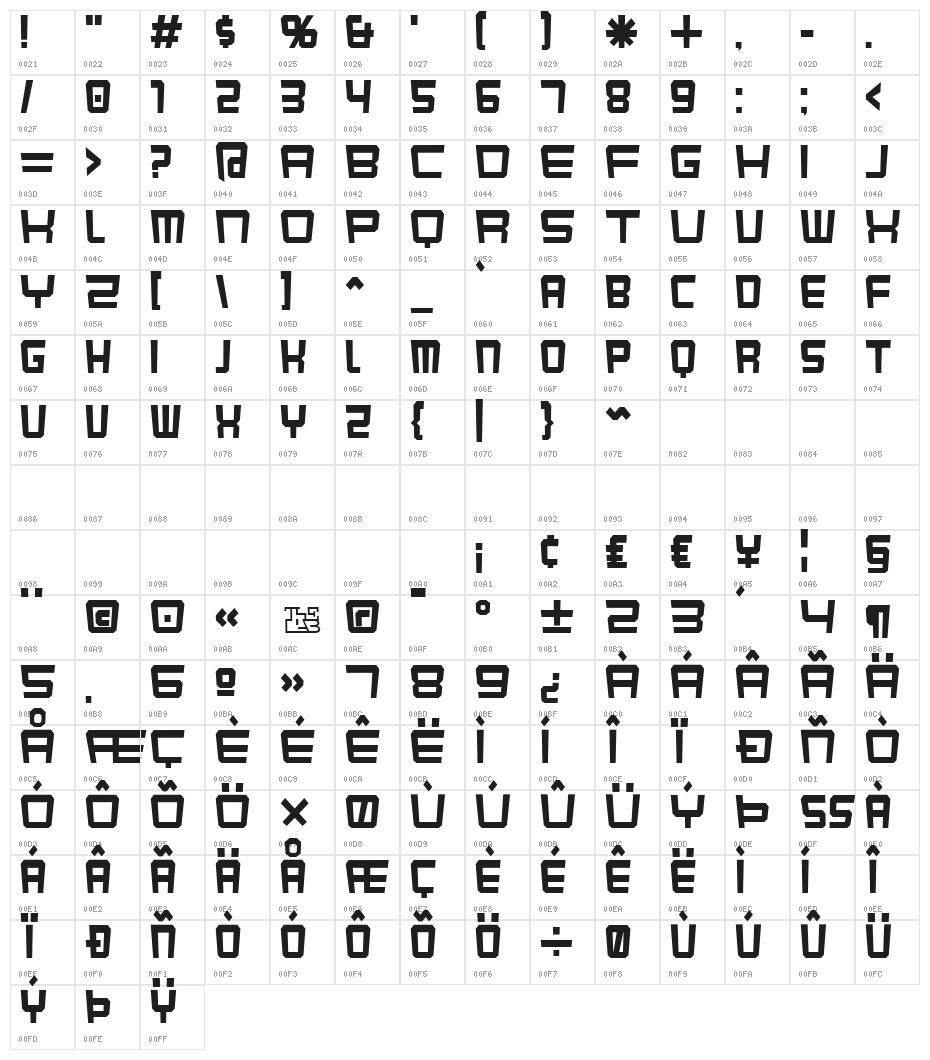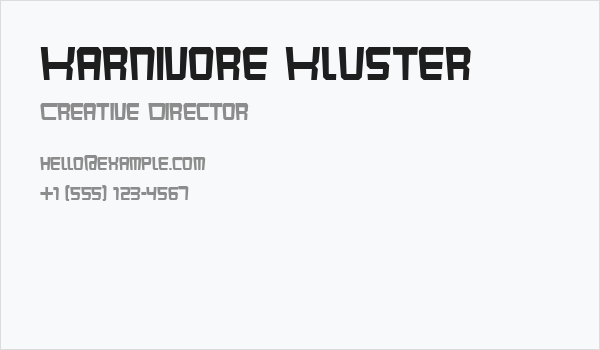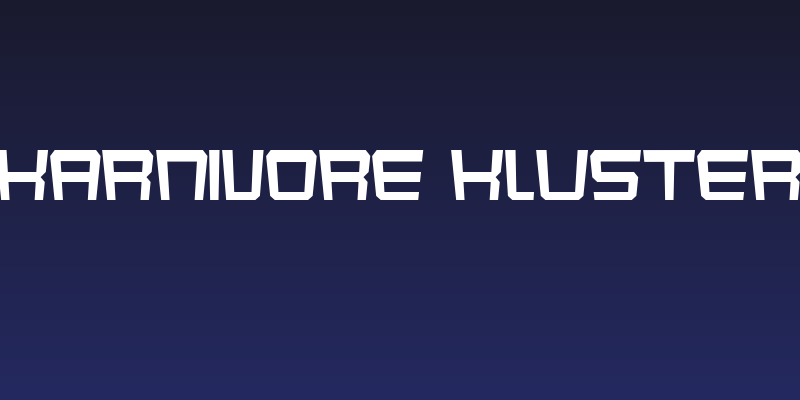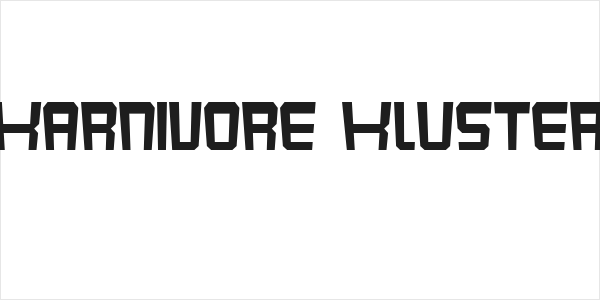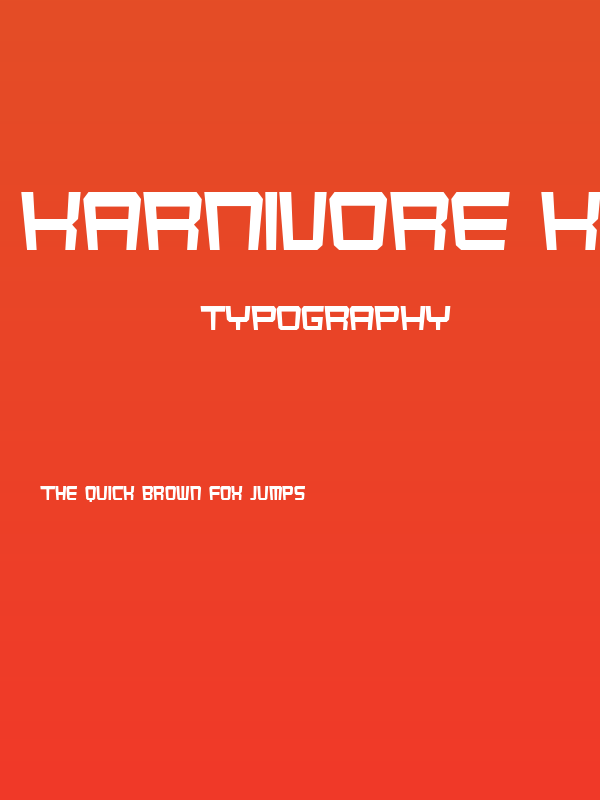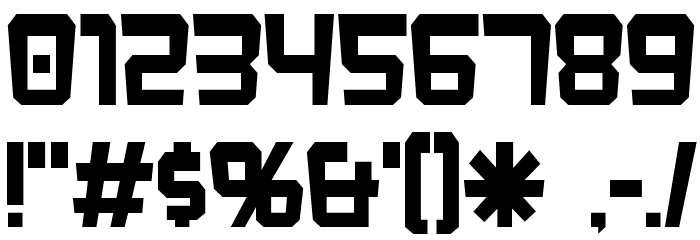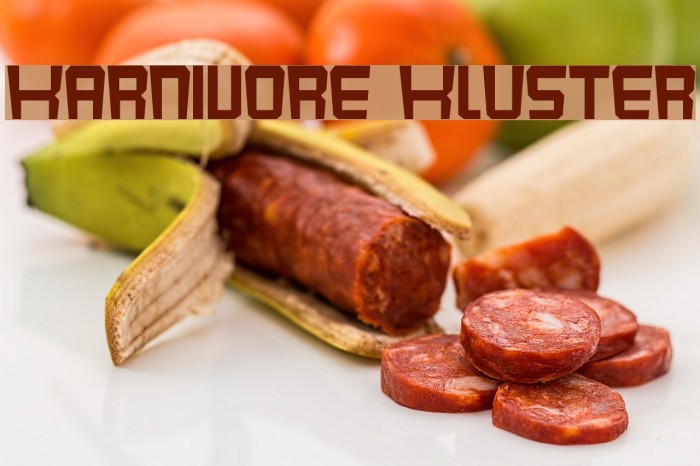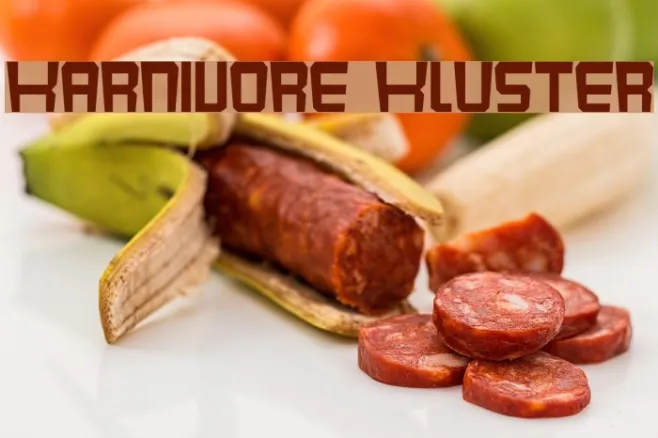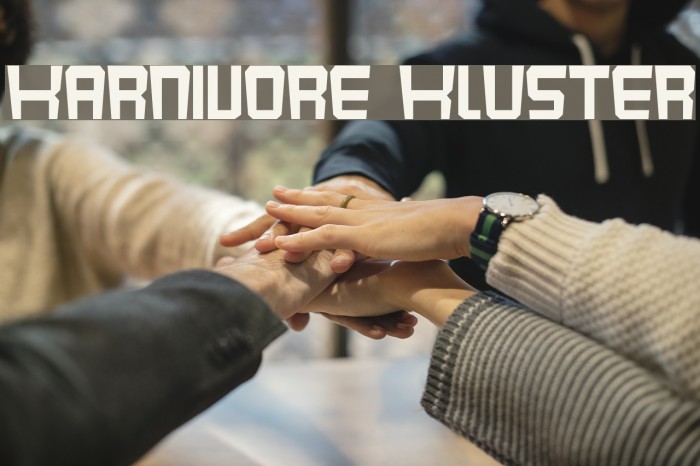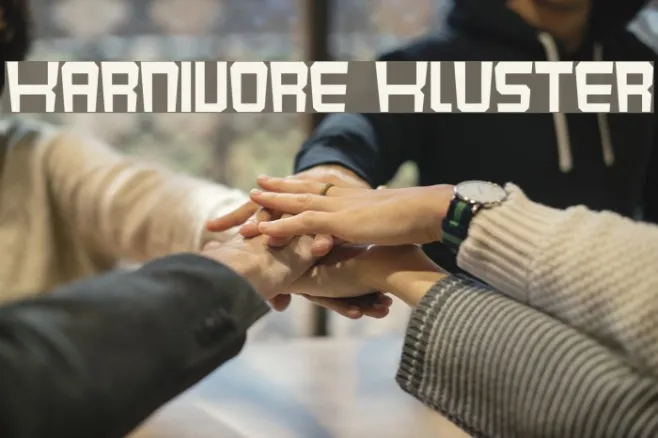
Karnivore Kluster Font
Karnivore Kluster Description
This font exhibits a bold and angular design, characterized by its geometric and block-like structure. The characters are uniformly wide, with sharp edges and a futuristic appearance. The uppercase and lowercase letters maintain a consistent style, with a strong emphasis on vertical and horizontal lines. The numerals and special characters follow the same design principles, ensuring a cohesive look across all glyphs. The font's unique style makes it stand out, suitable for projects that require a modern and edgy aesthetic.
| Proposed Projects | Ideal for sci-fi themed projects, video game titles, posters, and branding that requires a modern, edgy look. |